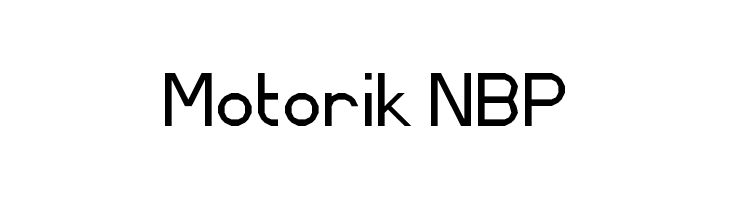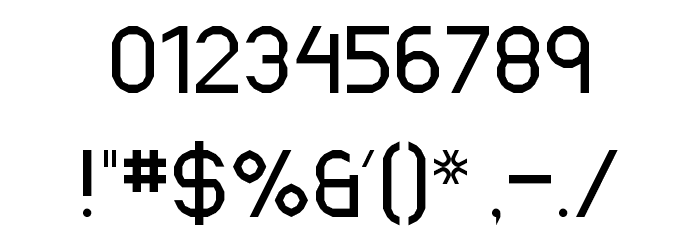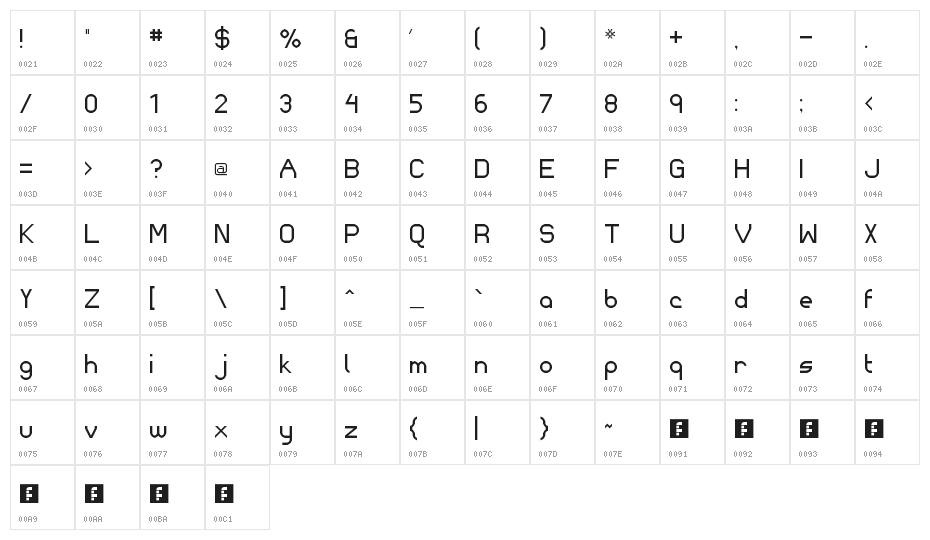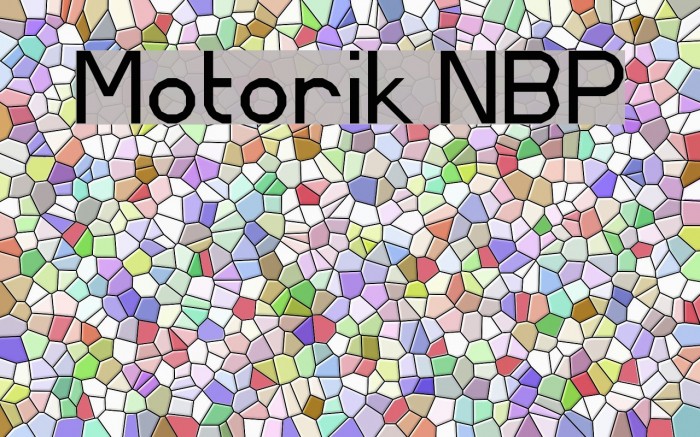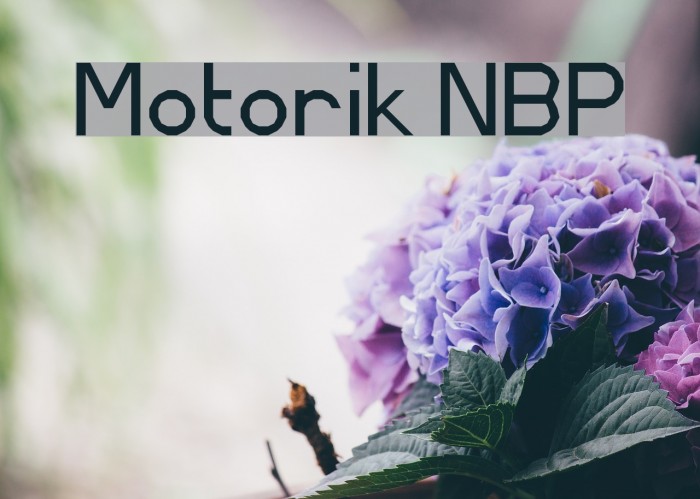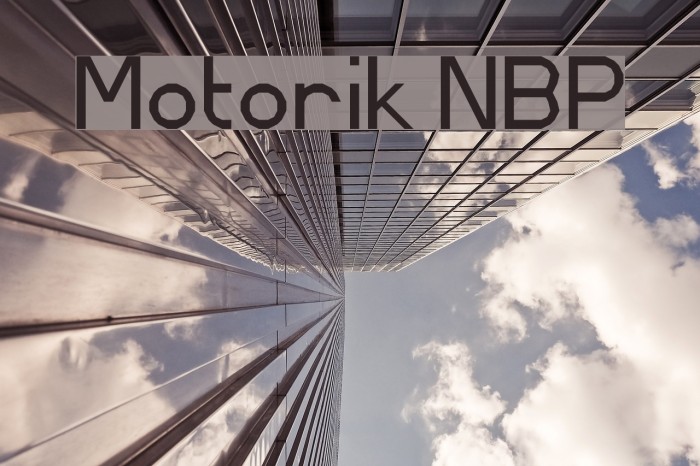
Motorik NBP Font
Motorik NBP Description
This font features a geometric and modern design with clean, straight lines and a slightly rounded appearance. The uppercase letters are bold and assertive, while the lowercase letters maintain a consistent style with a touch of playfulness, particularly noticeable in the unique treatment of characters like 's' and 't'. The numerals are clear and easy to read, matching the overall aesthetic of the alphabet. Special characters are well-integrated, maintaining the font's cohesive look. The font's structure is uniform, with a balanced weight that makes it versatile for various applications.
| Use Case | Headlines, Logos, Digital Interfaces |
| Proposed Projects | Ideal for technology branding, modern advertising, digital interfaces, and futuristic designs. |